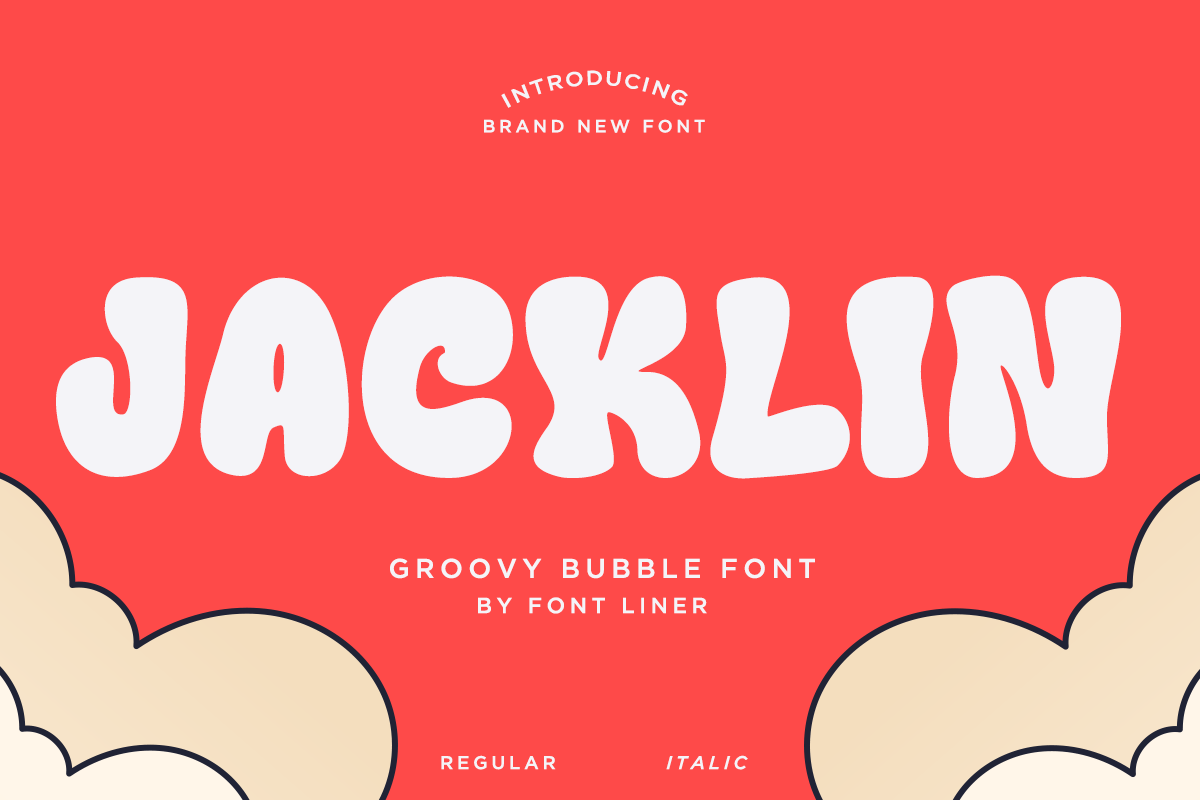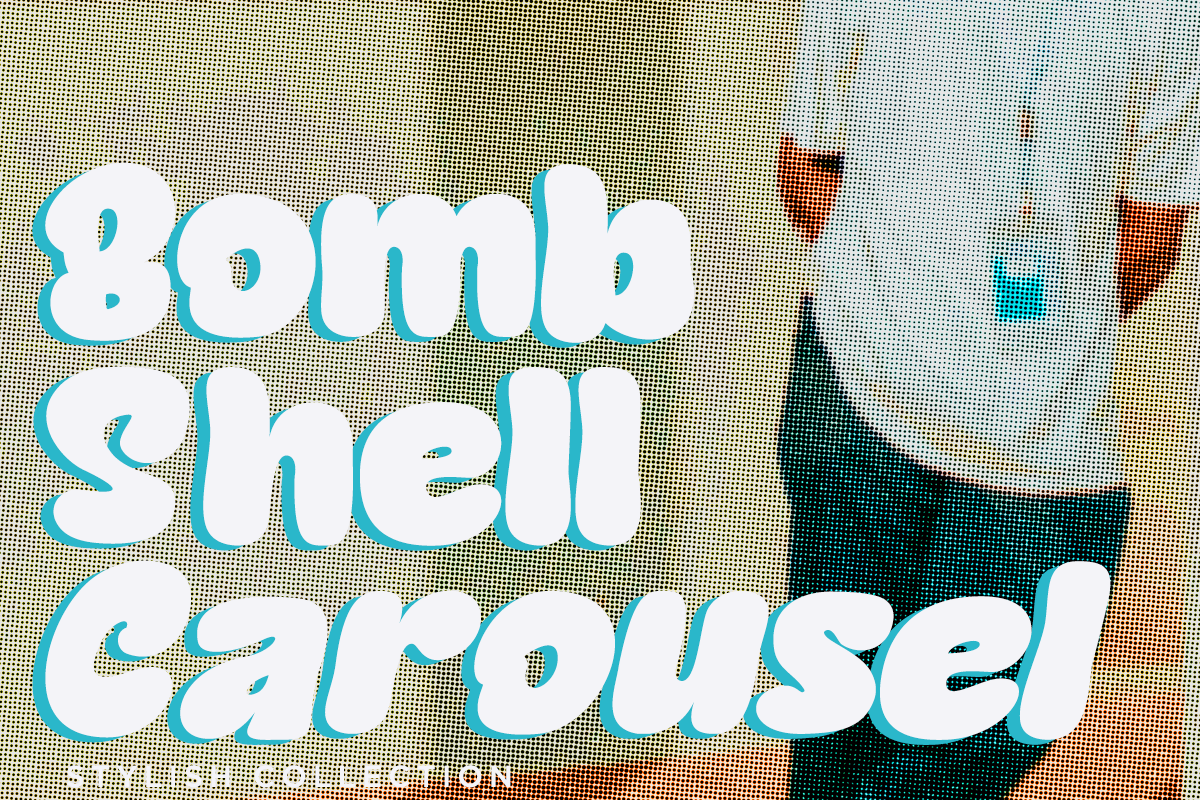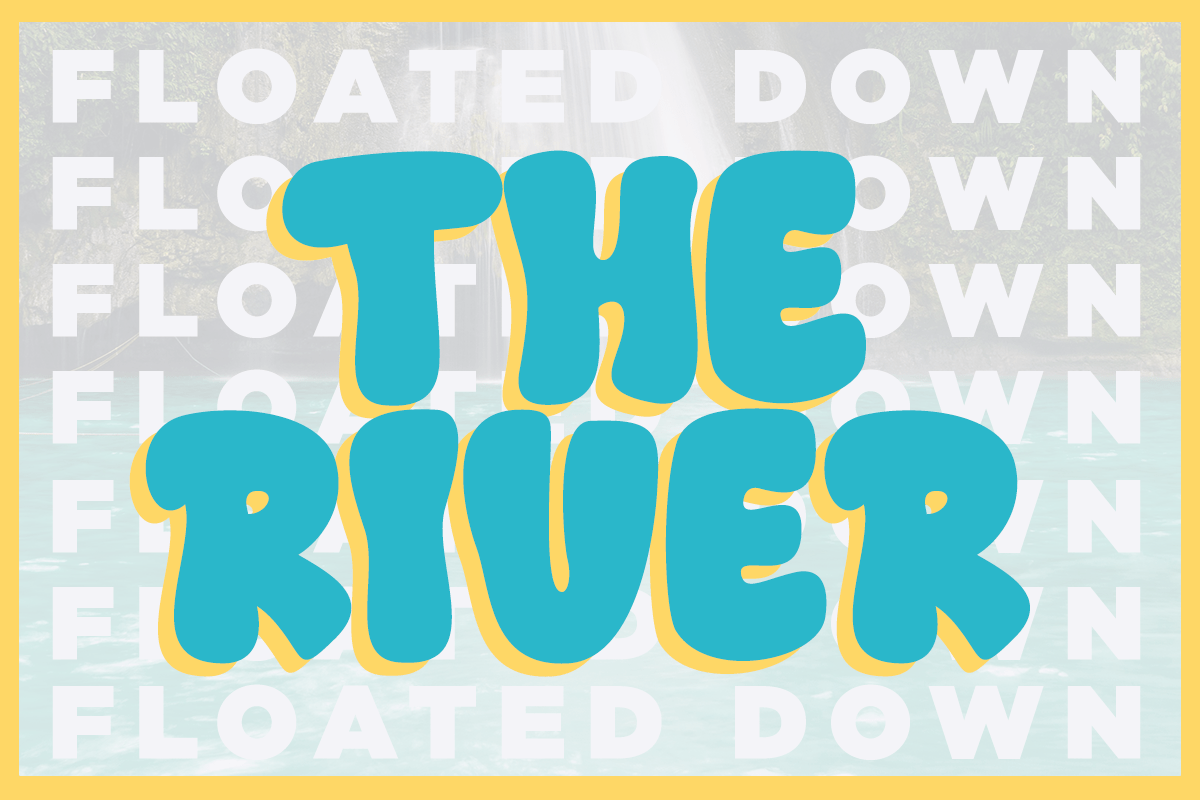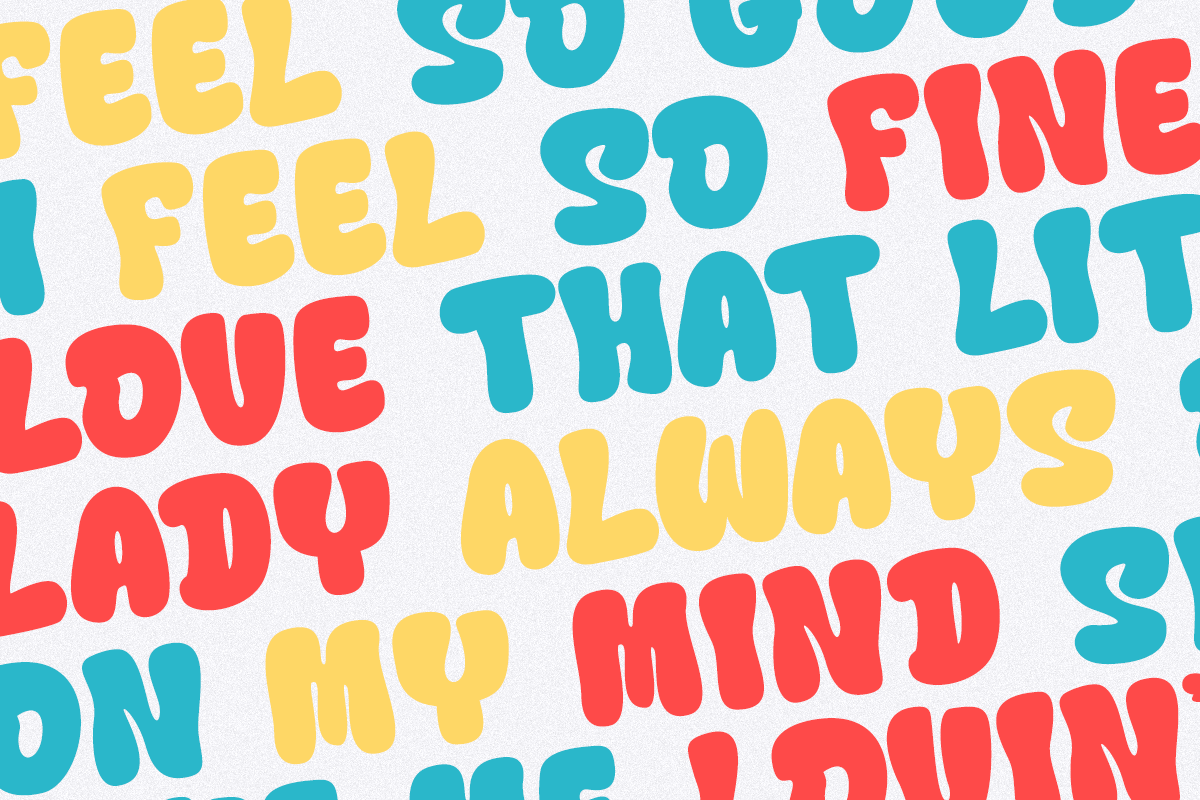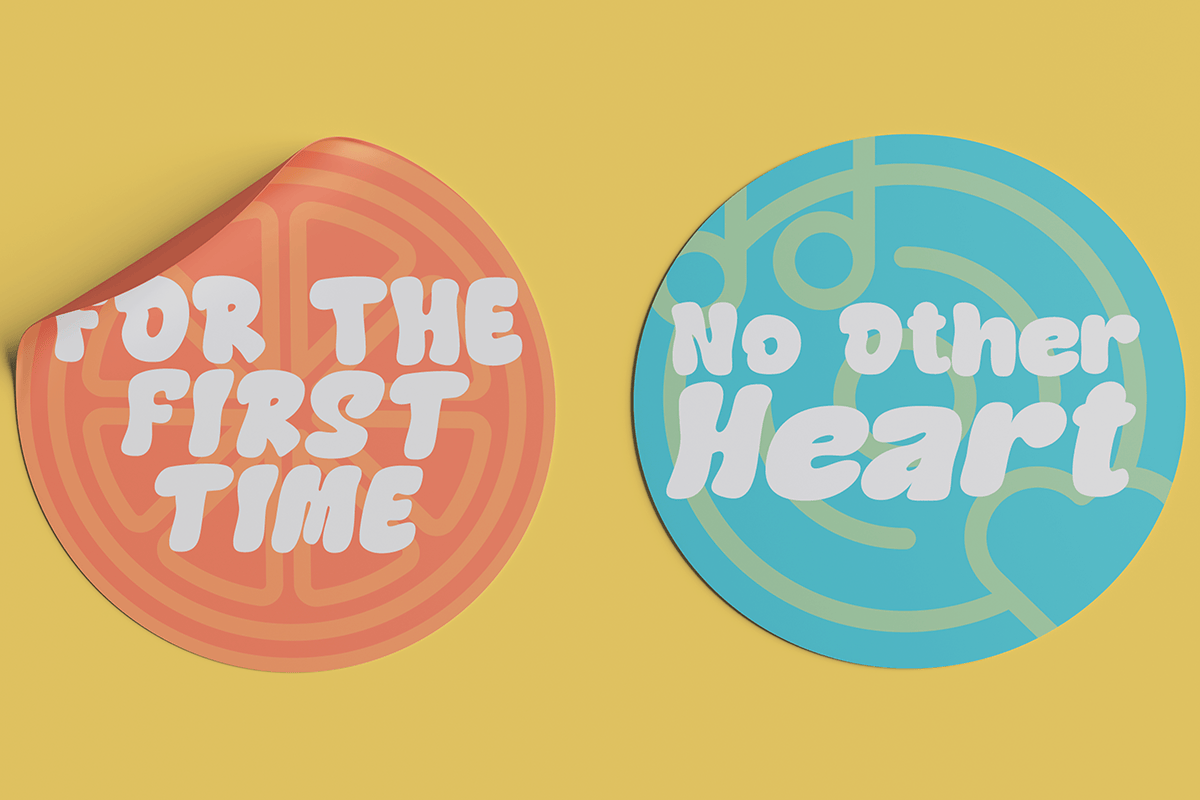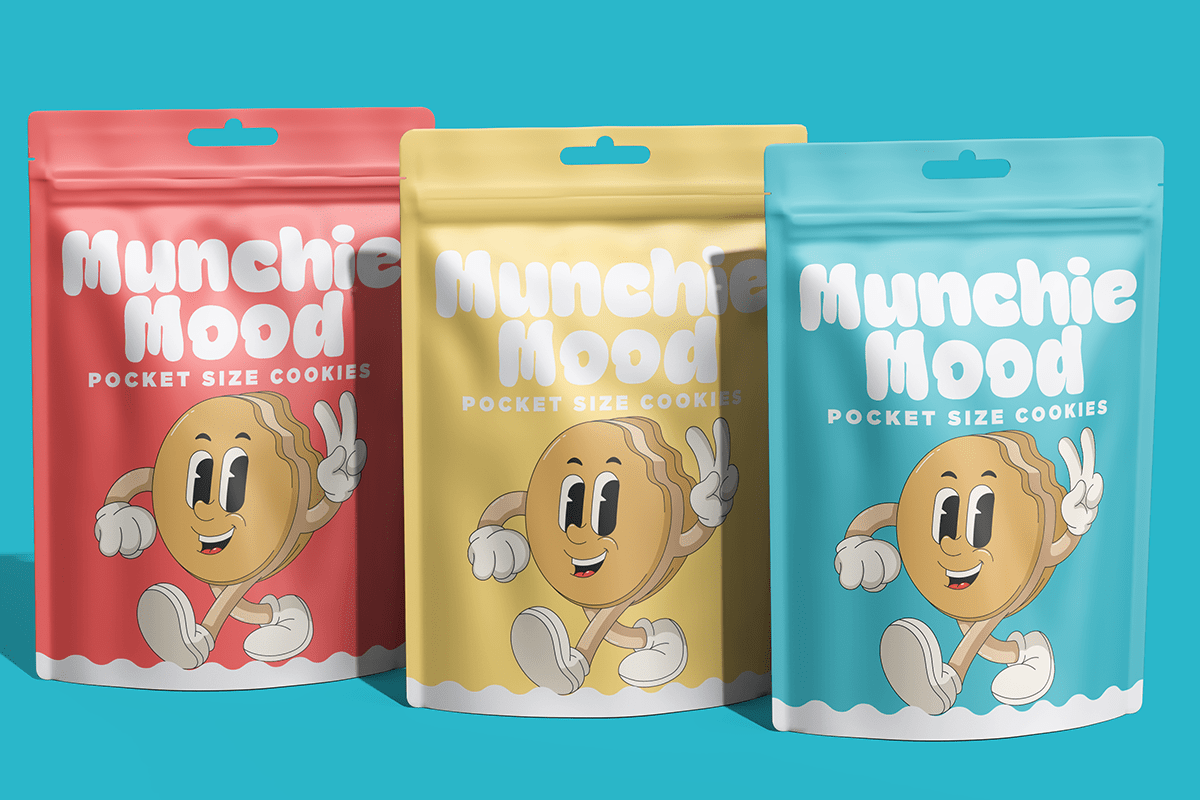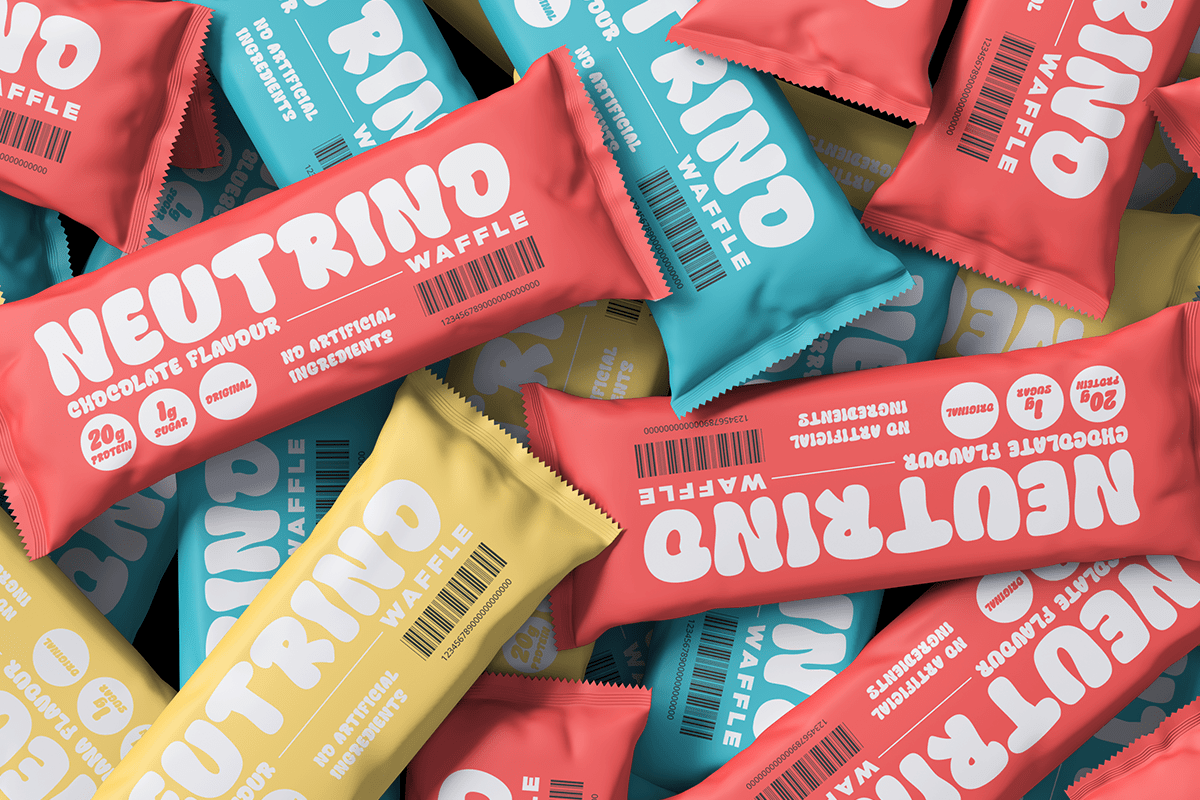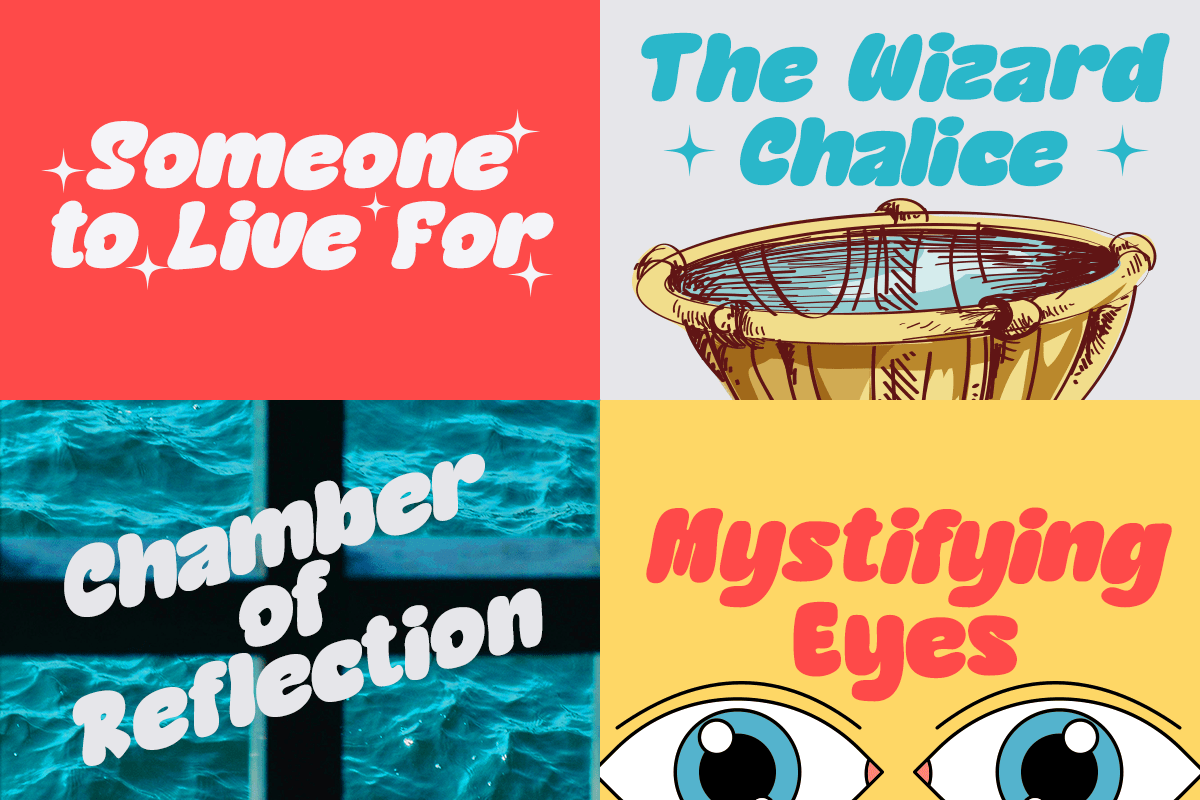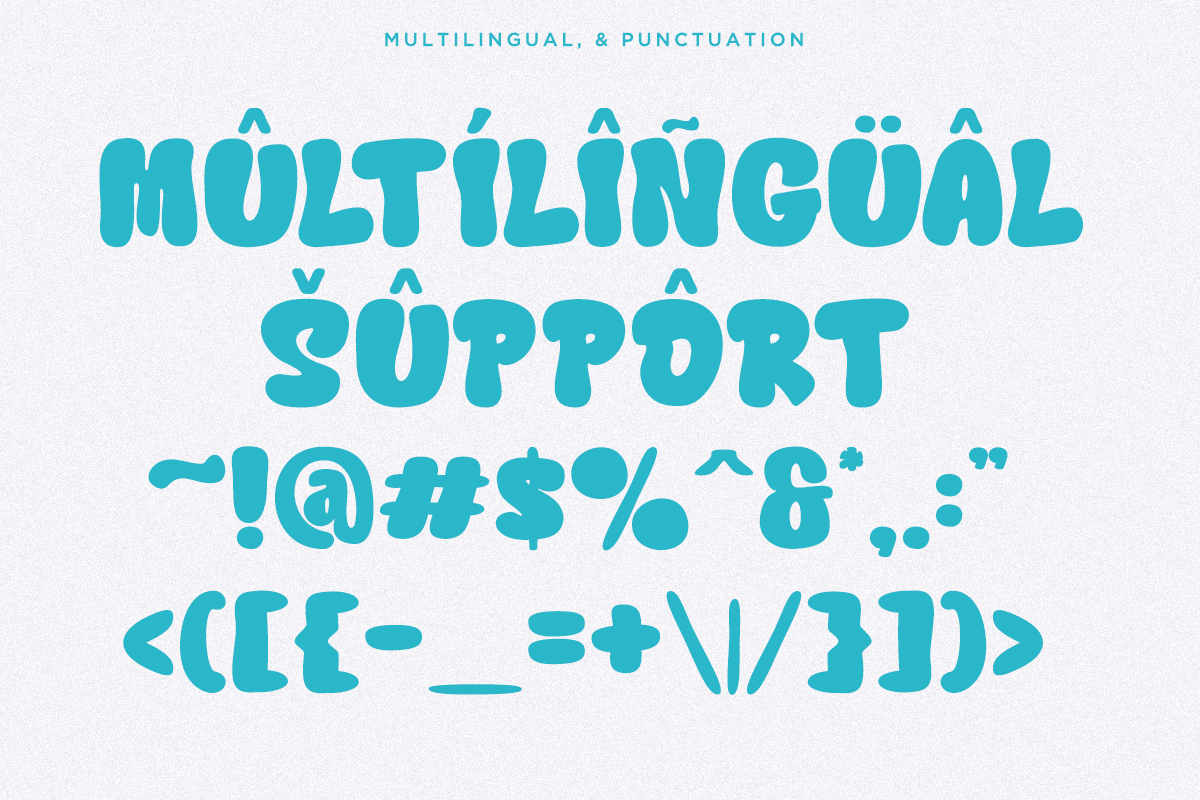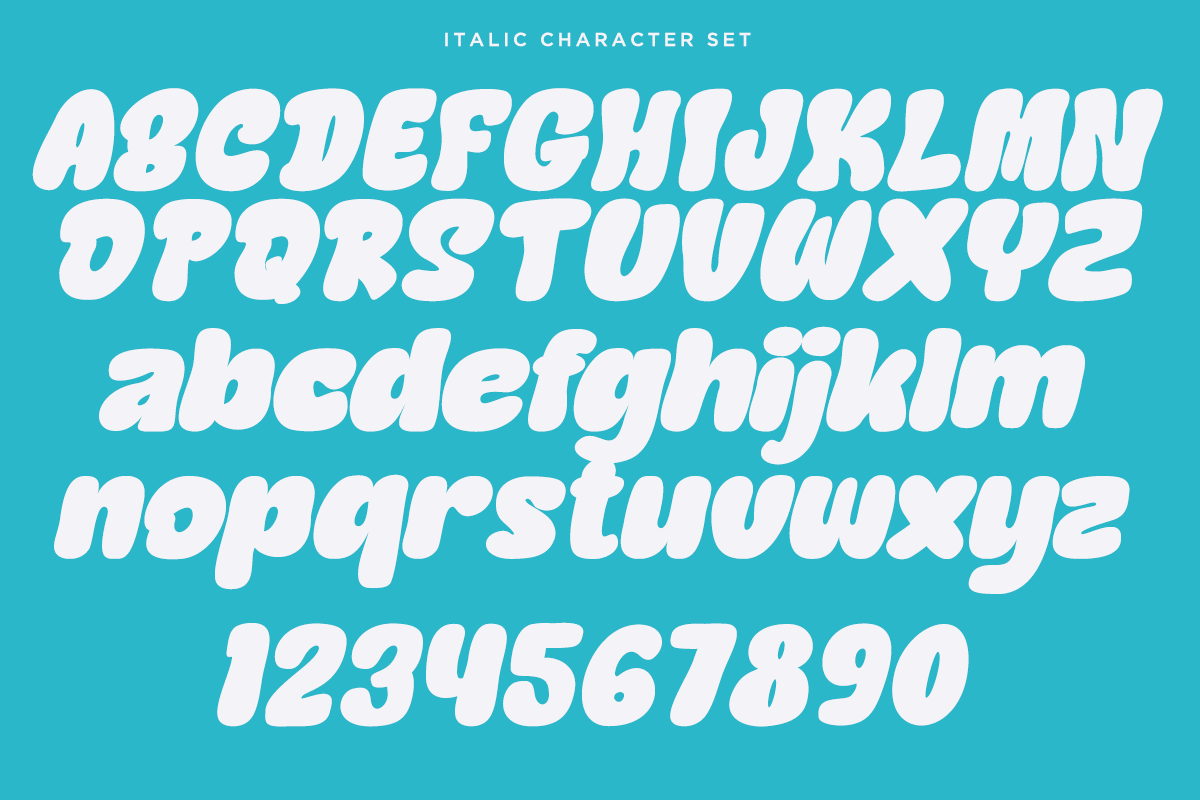
Jacklin – Groovy Bubble Font
Jacklin is a fun groovy bubble font inspired by retro pop culture, playful cartoons, and colorful vintage graphics. Featuring chunky rounded letterforms, soft curves, and a cheerful personality, this typeface instantly creates eye-catching typography that feels energetic, friendly, and full of character. Its bold bubble style makes it perfect for designs that need a joyful and memorable visual identity.
Perfect for children’s products, snack packaging, candy brands, food labels, cafés, posters, social media graphics, merchandise, stickers, apparel, book covers, event promotions, and playful branding, Jacklin delivers bold typography that stands out across both print and digital media. Whether you’re creating logos, headlines, packaging, or promotional materials, this font adds a nostalgic yet modern charm to every project.
Jacklin includes regular and italic styles, uppercase and lowercase letters, multilingual support, numerals, punctuation, and symbols, giving designers complete creative flexibility. From playful branding and cartoon-inspired artwork to vibrant packaging and lifestyle campaigns, Jacklin is the ideal bubble font for creating fun, expressive, and unforgettable designs.
– Stylistic alternates
– Uppercase, Lowercase & Ligatures